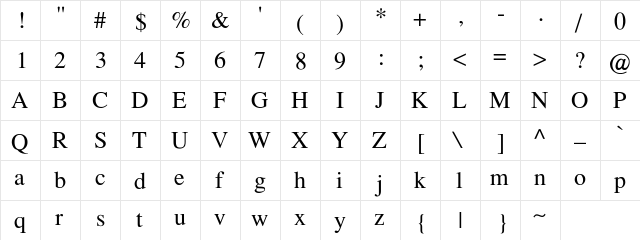
Tempo-Font Regular
Design Context for Tempo-Font Typeface
Tempo-Font is a composed and adaptable typeface that performs quietly and consistently across a wide range of design contexts.
Pro Tip: Pair Tempo-Font with a font of contrasting weight or personality to build a more expressive typographic hierarchy.